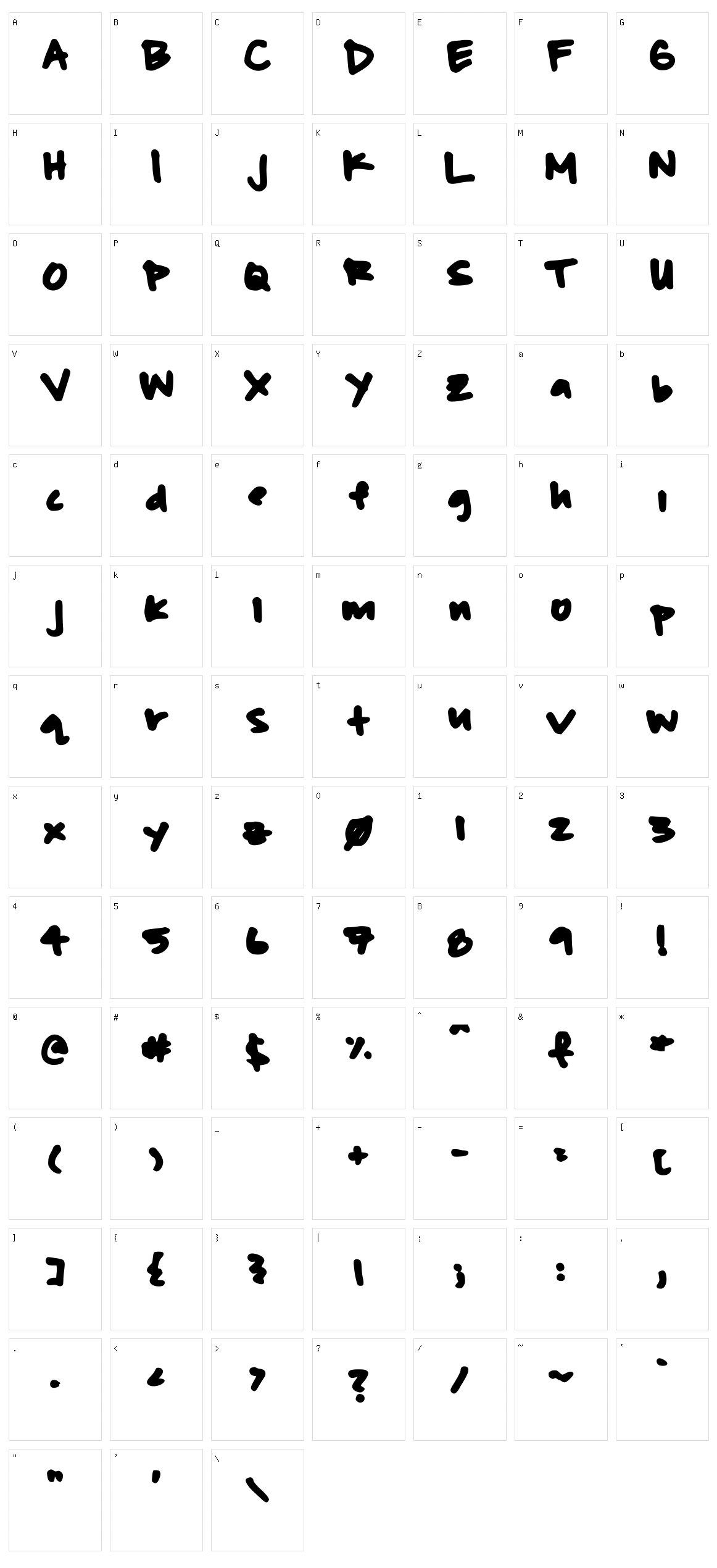
The free font Beasley is carefully designed by Huntley-Rodgers, showcasing a thoughtful balance of creativity and usability and falls under the Script font style. When you download the ZIP file, it contains only 14.14 KB of font files, making it lightweight and quick to download. Please review the license details below to understand permitted usage and distribution rights. If license information is not available, we recommend using this font for personal projects only or contacting the author directly for commercial usage permissions.